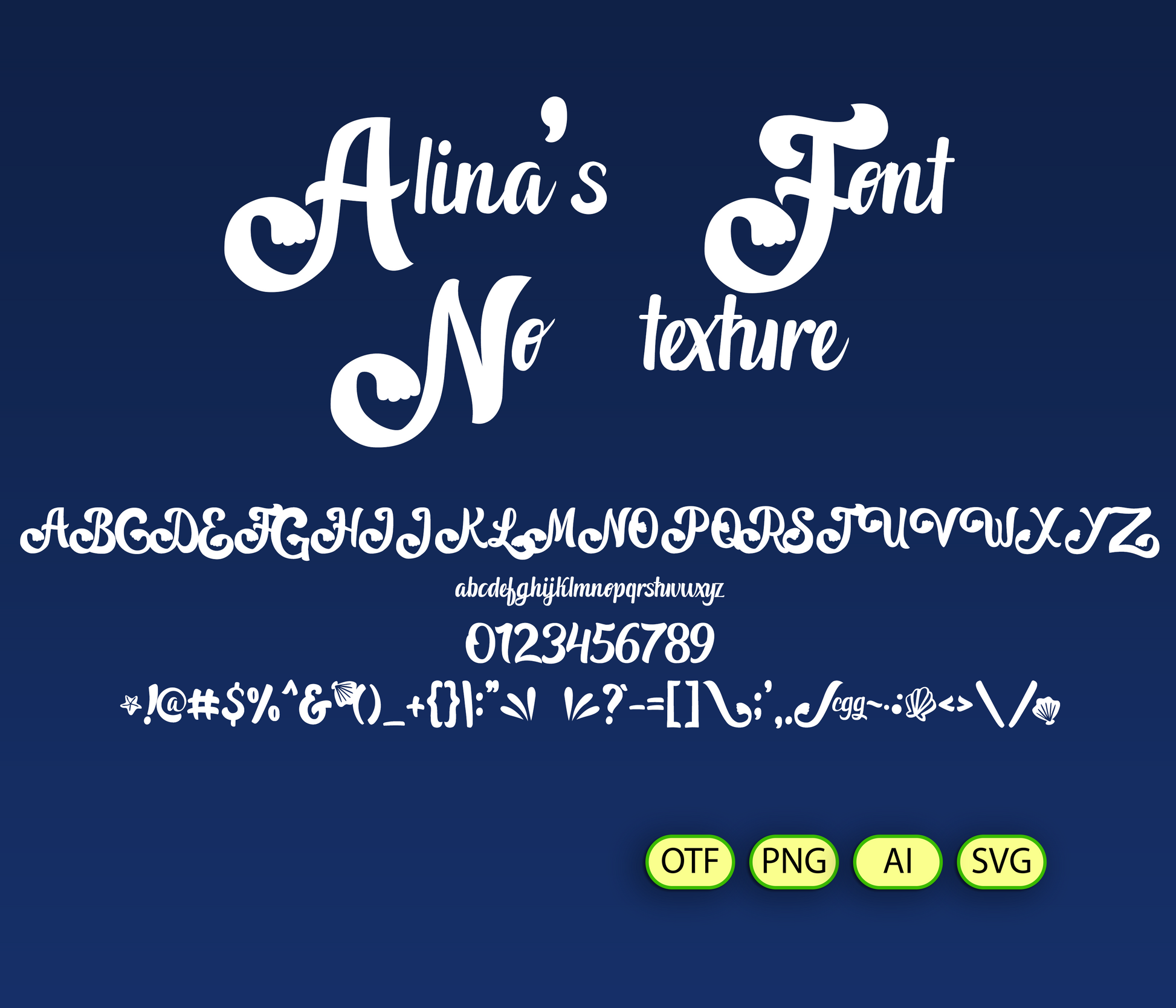
Aquatic Enchantress Font
Dive into the magical underwater realm of mystical sea beings with our specially designed font. This typeface captures the essence of enchanting aquatic tales, known for their alluring melodies and shimmering scales. Perfect for designers, party planners, and fans of undersea fantasies, this font brings the whimsical, dreamy spirit of finfolk lore to your creative projects.
What font is the Aquatic Enchantress font?
Envision a typeface that embodies the ethereal beauty of sea maidens - flowing, elegant, and sparkling with underwater charm. Our font features graceful, fluid letterforms that mirror the gentle waves of the ocean, complete with subtle flourishes reminiscent of fish tails and seashells. It includes a comprehensive character set with alphabets, numbers, and special symbols, providing a versatile solution for various design needs.
What You Can Do With Aquatic Enchantress Textured Font
- Extensive Character Set: Offers a wide range of characters for complete design flexibility